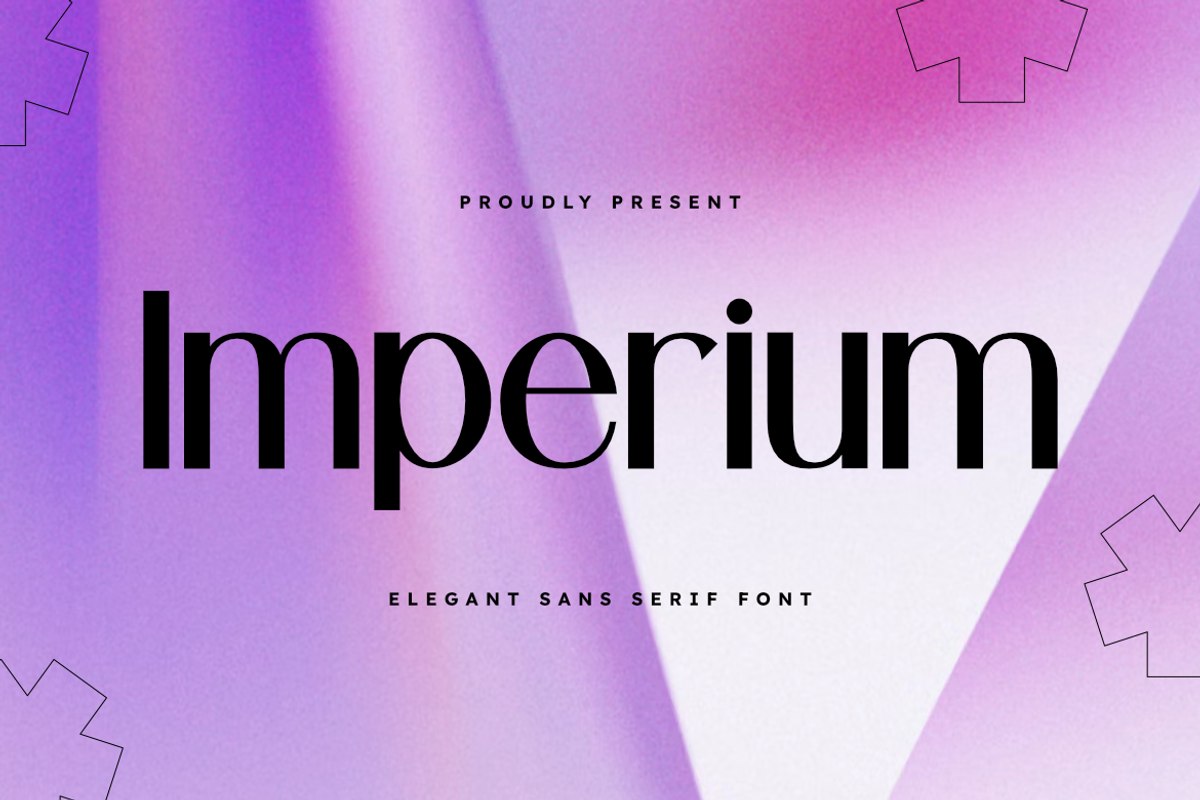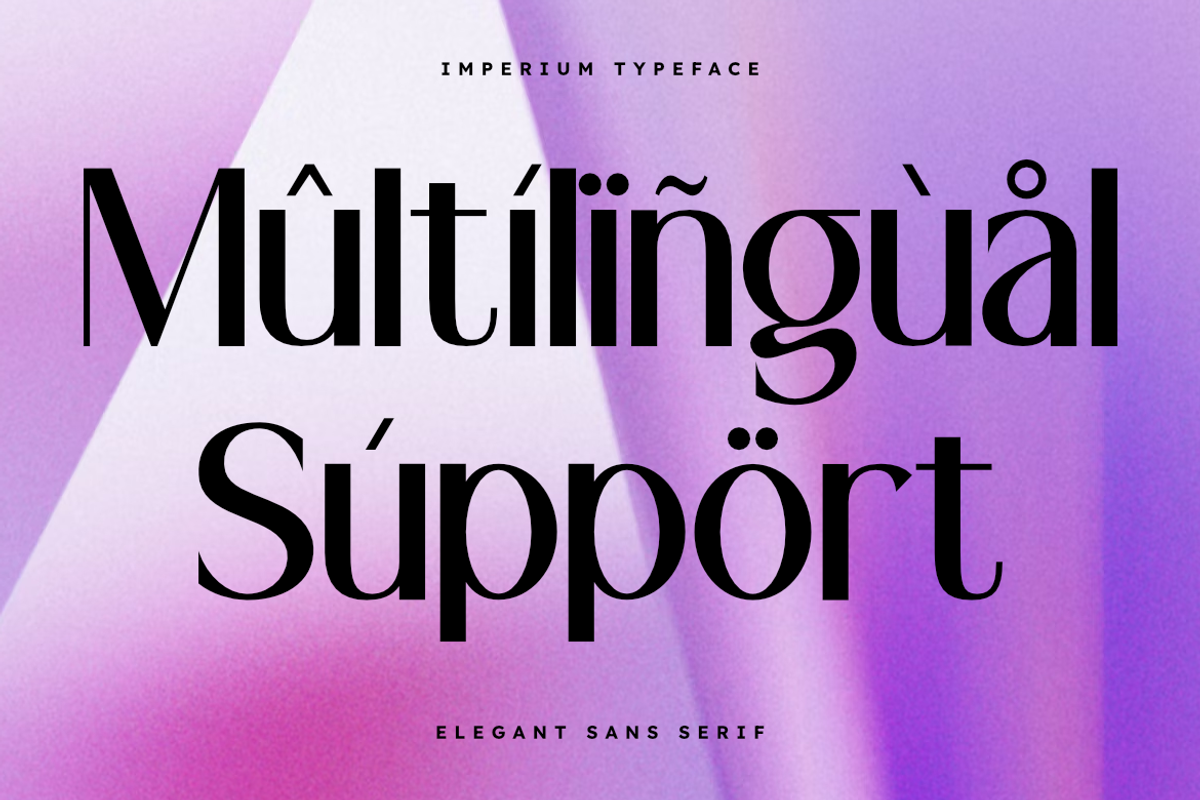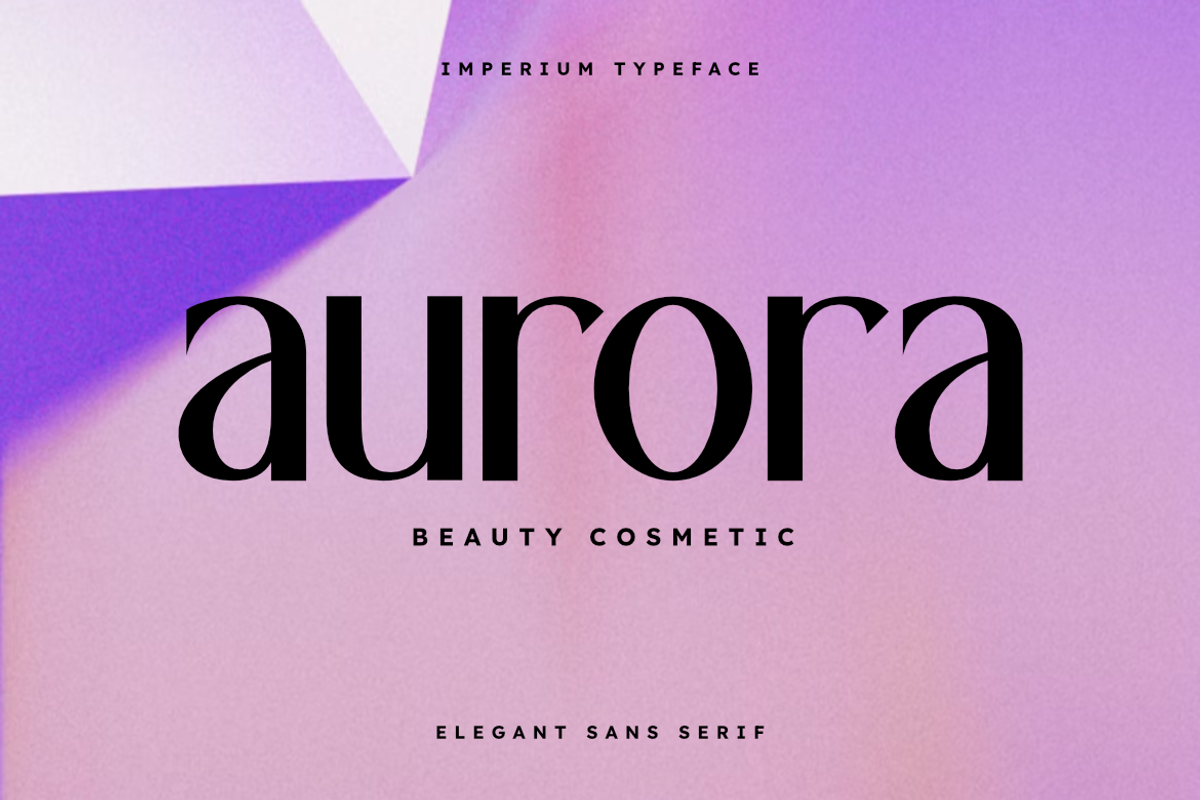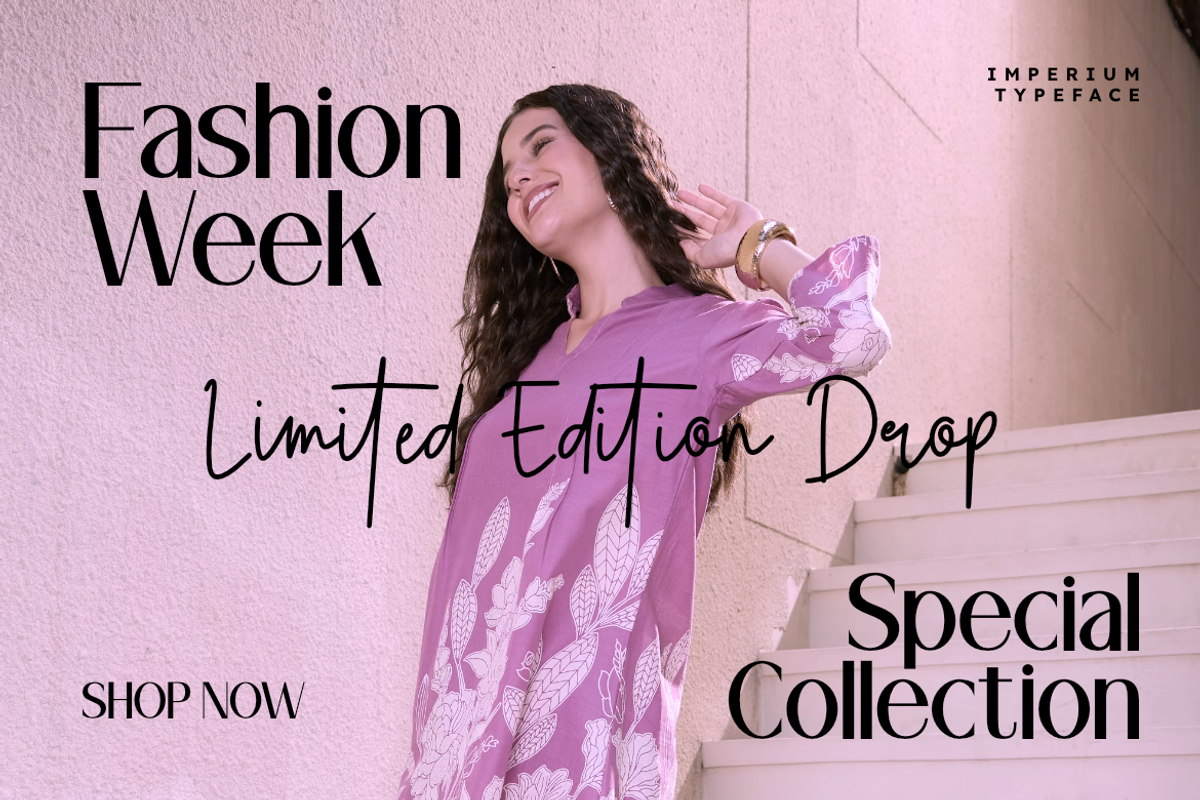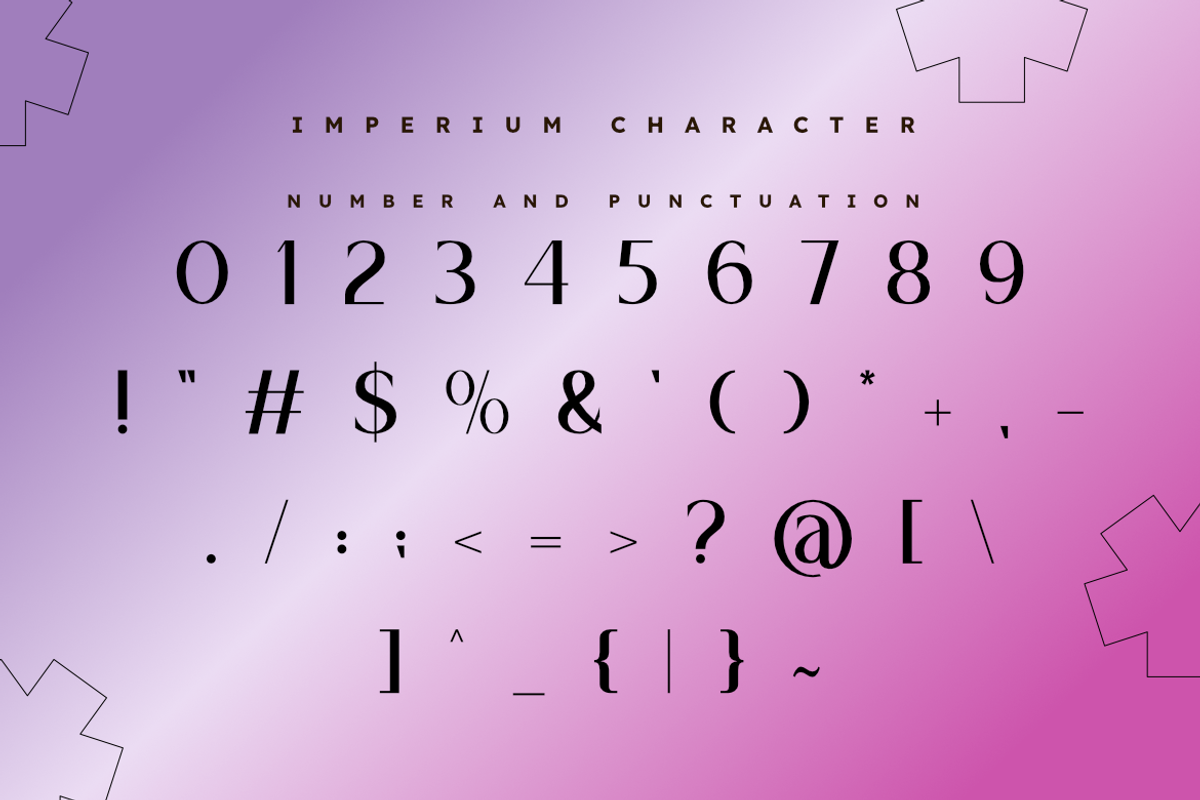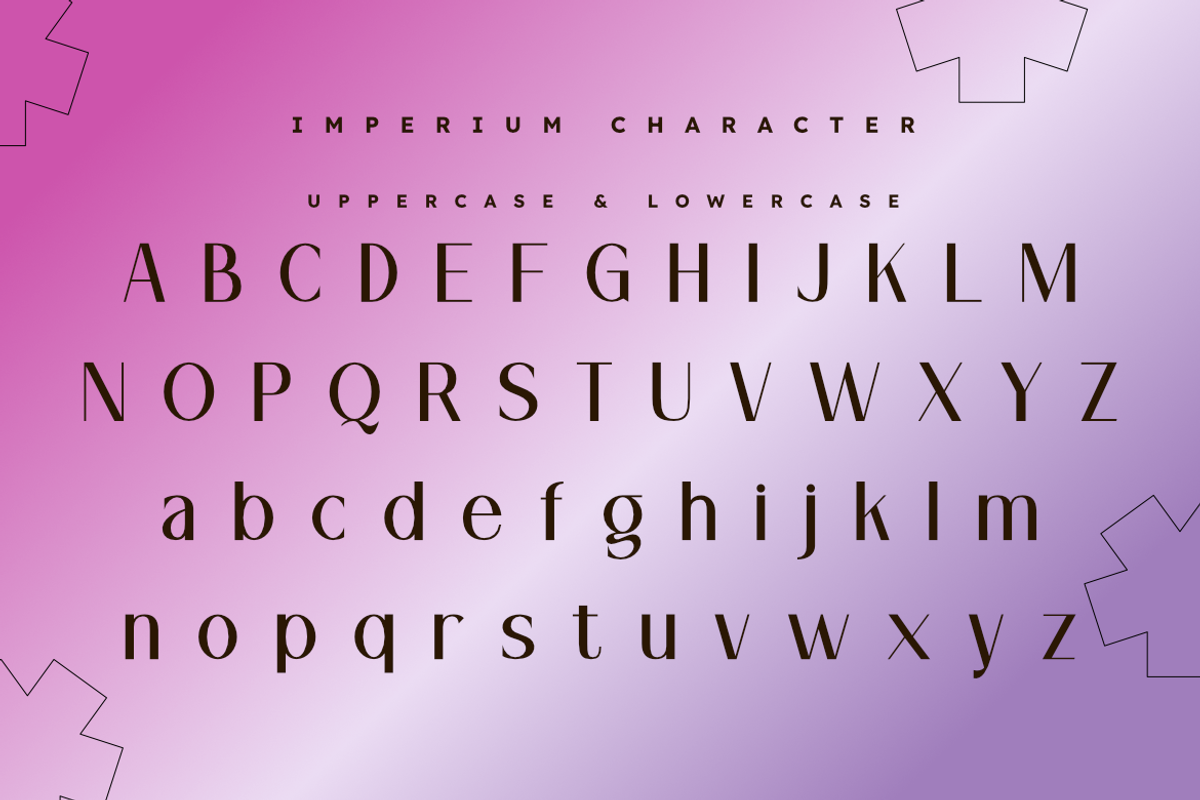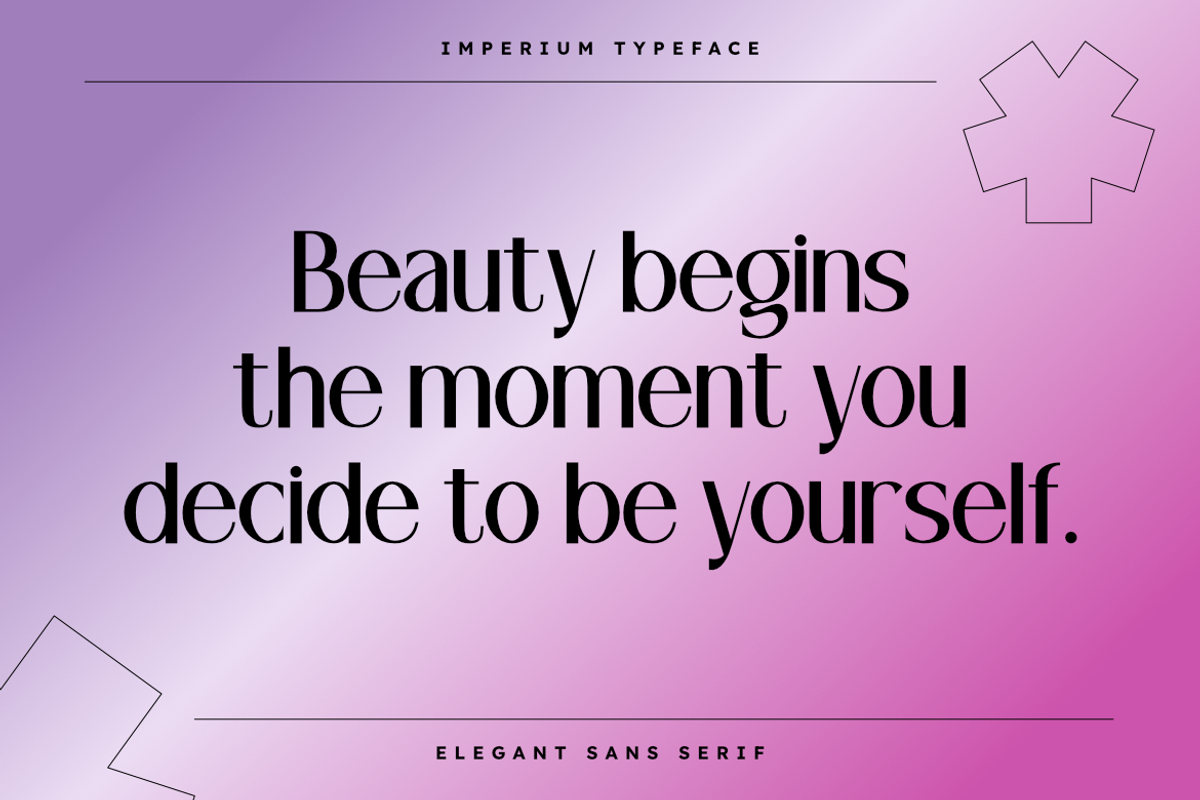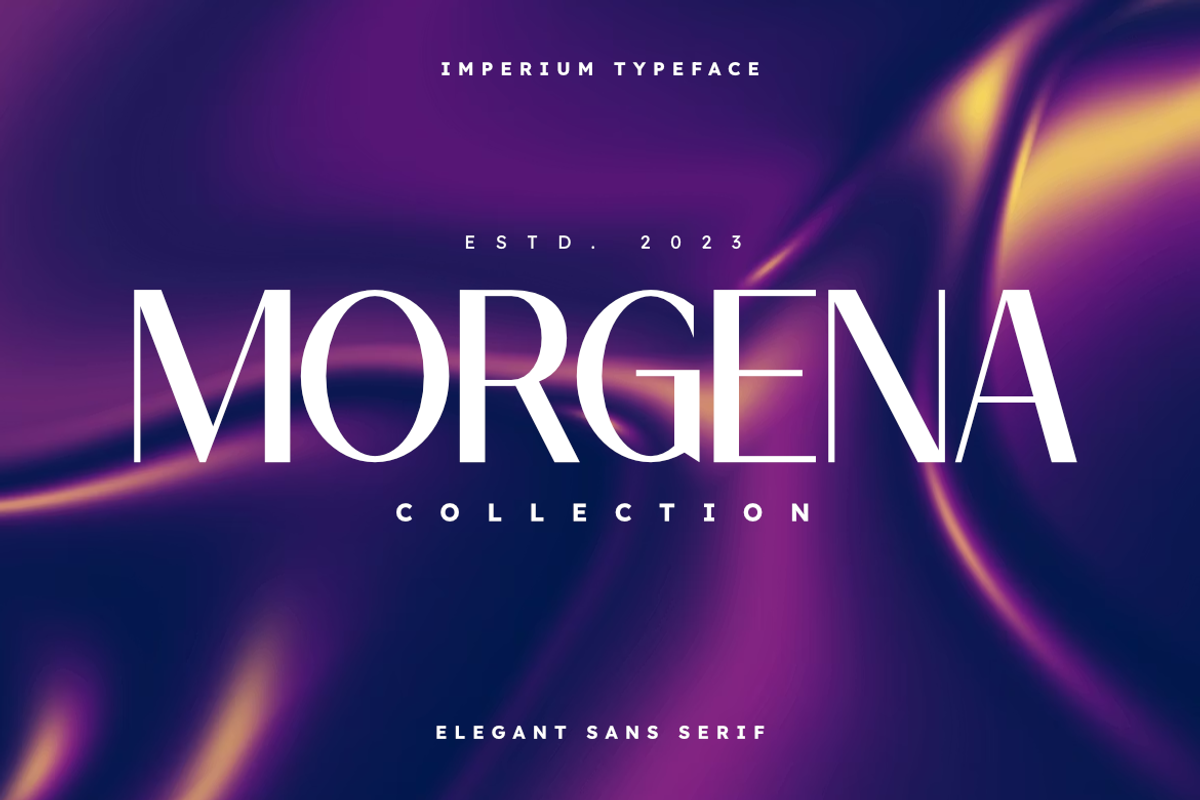
Imperium | Elegant Luxury Sans
Imperium - Elegant Minimalist Sans Serif
Imperium is an exquisite sans serif typeface that defines modern sophistication. Designed with a tall, slender silhouette and clean geometric lines, this font brings a high-end, editorial feel to any creative project. Its minimalist approach ensures it remains timeless, making it an essential asset for designers seeking a refined aesthetic.
Perfect for luxury branding, sleek corporate identities, fashion magazines, and premium web headers, Imperium offers exceptional clarity and style. Whether you are creating a bold display title or a subtle brand accent, Imperium delivers a professional and polished look every time.
- Elegant, tall, and slender sans serif design.
- Clean and minimalist geometric architecture.
- Versatile for luxury branding and editorial layouts.
- Full multilingual support for international reach.